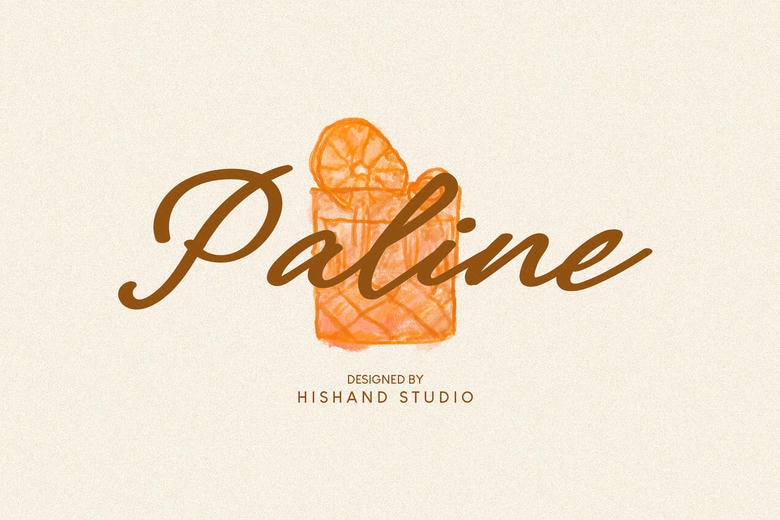
Paline Font
Paline Stylish Script Font is developed by the Hishand Studio and designed to personaize the beauty of the natural handwriting in a sophisticated manner. It has a rhythmic harmony that is appealing to the eye due to its smooth flowing lines and balanced letterforms, which make it very smooth and easily readable.
The font is also beautiful with graceful curves and well developed links between letters making it look rather sophisticated and not too formal. Paline has a wide range of character it can portray openness and friendliness as well as have a professional look. Every character is meticulously crafted in order to bring continuity to words making your typography look natural and purposeful.
Paline was created with its vintage typeface that is perfect in logos, signatures, headlines, and any other design that requires a vintage typographic voice to be used. With its elegant appeal, Paline provides a sophisticated look which provides style and elegance to your message whether displayed on such a large screen or more delicate usage.
Paline Stylish Script Font